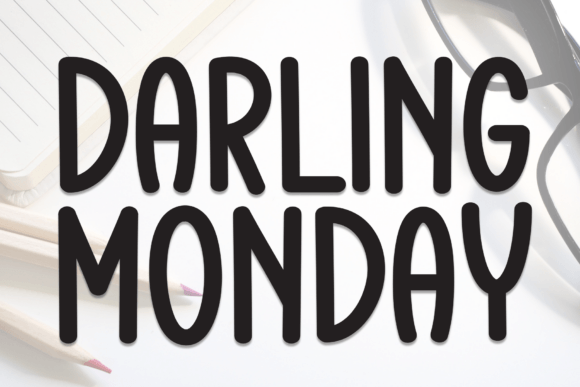
Darling Monday Font: The Sweet and Friendly Handwritten Font for Your Designs
In the world of typography, fonts play a crucial role in making or breaking a design. A font can elevate your project from ordinary to extraordinary, and Darling Monday Font is one such gem. This sweet and friendly handwritten font is perfect for designers looking to add a personal touch to their creations. With its natural and unique style, Darling Monday Font can be used in a wide range of designs, from invitations and greeting cards to branding and advertising materials.
What Makes Darling Monday Font Special?
- Handwritten with love: Darling Monday Font is a carefully crafted handwritten font that exudes warmth and personality. Its natural, flowing lines make it perfect for creating a friendly and approachable atmosphere in your designs.
- Unique and versatile: The font’s unique style makes it incredibly versatile, allowing you to use it in a variety of designs, from elegant and sophisticated to playful and whimsical.
- Easy to read: Despite its handwritten nature, Darling Monday Font is surprisingly easy to read, making it perfect for body text and longer blocks of content.
Endless Design Possibilities with Darling Monday Font
So, what can you create with Darling Monday Font? The answer is: almost anything! Here are some design ideas to get you started:
- Wedding invitations and stationery: Add a touch of romance and elegance to your wedding designs with Darling Monday Font.
- Greeting cards and invitations: Create personalized and heartfelt greeting cards and invitations for birthdays, holidays, and special occasions.
- Branding and packaging: Use Darling Monday Font to create unique and eye-catching branding and packaging materials that stand out from the crowd.
- Social media graphics: Add a personal touch to your social media graphics, such as quotes, posters, and ads, with Darling Monday Font.
Pairing Darling Monday Font with Other Fonts
To create visually appealing designs, it’s essential to pair Darling Monday Font with complementary fonts. Here are some font pairing suggestions:
- Serif fonts: Pair Darling Monday Font with serif fonts, such as Times New Roman or Georgia, for a classic and sophisticated look.
- Script fonts: Combine Darling Monday Font with other script fonts, such as Pacifico or Great Vibes, for a playful and elegant feel.
- Sans-serif fonts: Pair Darling Monday Font with sans-serif fonts, such as Arial or Helvetica, for a modern and clean look.
Tips and Tricks for Using Darling Monday Font
To get the most out of Darling Monday Font, here are some tips and tricks to keep in mind:
- Use it sparingly: While Darling Monday Font is beautiful, it’s best to use it sparingly to avoid overwhelming your design.
- Experiment with colors: Darling Monday Font looks great in a variety of colors, so don’t be afraid to experiment and find the perfect hue for your design.
- Pay attention to spacing: Make sure to adjust the spacing between letters and words to create a clean and visually appealing design.
In conclusion, Darling Monday Font is a sweet and friendly handwritten font that’s perfect for designers looking to add a personal touch to their creations. With its natural and unique style, Darling Monday Font can be used in a wide range of designs, from invitations and greeting cards to branding and advertising materials. So why not give it a try and see what amazing designs you can create?